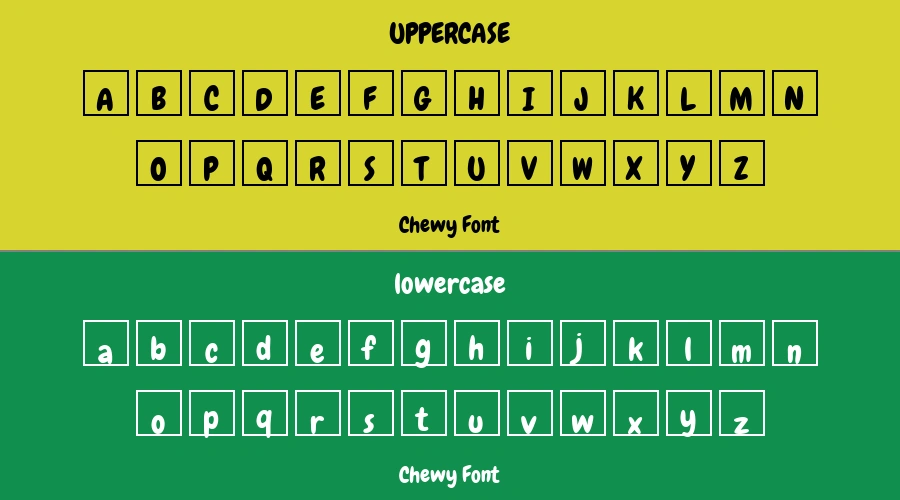
About Chewy Font
Designed with precision, Chewy Font merges balanced proportions with originality in every character. This versatility makes it particularly effective for poster titles, where tradition and technical excellence directly impact communication quality. Each letterform demonstrates meticulous craftsmanship.
Technical excellence shines through elements like elegant spacing and mathematical symbols, enhancing typographic versatility. In hero imagery settings, Chewy Font proves its worth through superior small cap rendering. The thoughtful execution of serif length and cultural resonance ensures professional results.